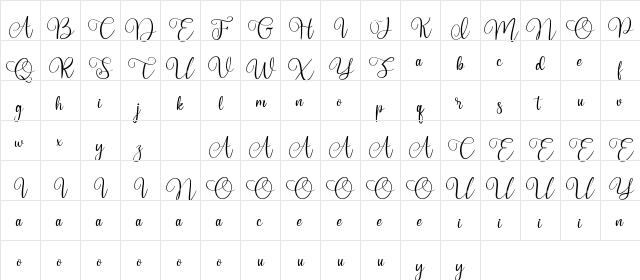
Aishiteru Lover Regular
Designer: Muhammad Farhan Sholeh Ramadhika
Design Context for Aishiteru Lover
Aishiteru Lover is a composed and adaptable typeface that performs quietly and consistently across a wide range of design contexts.